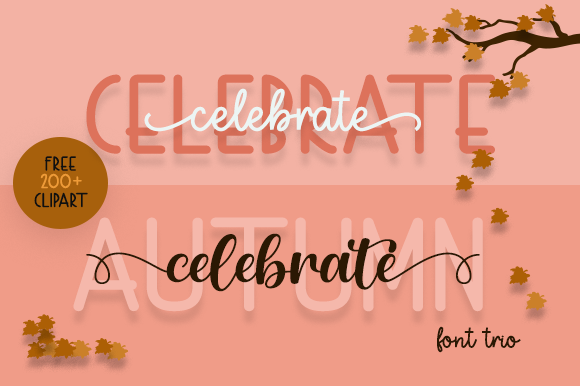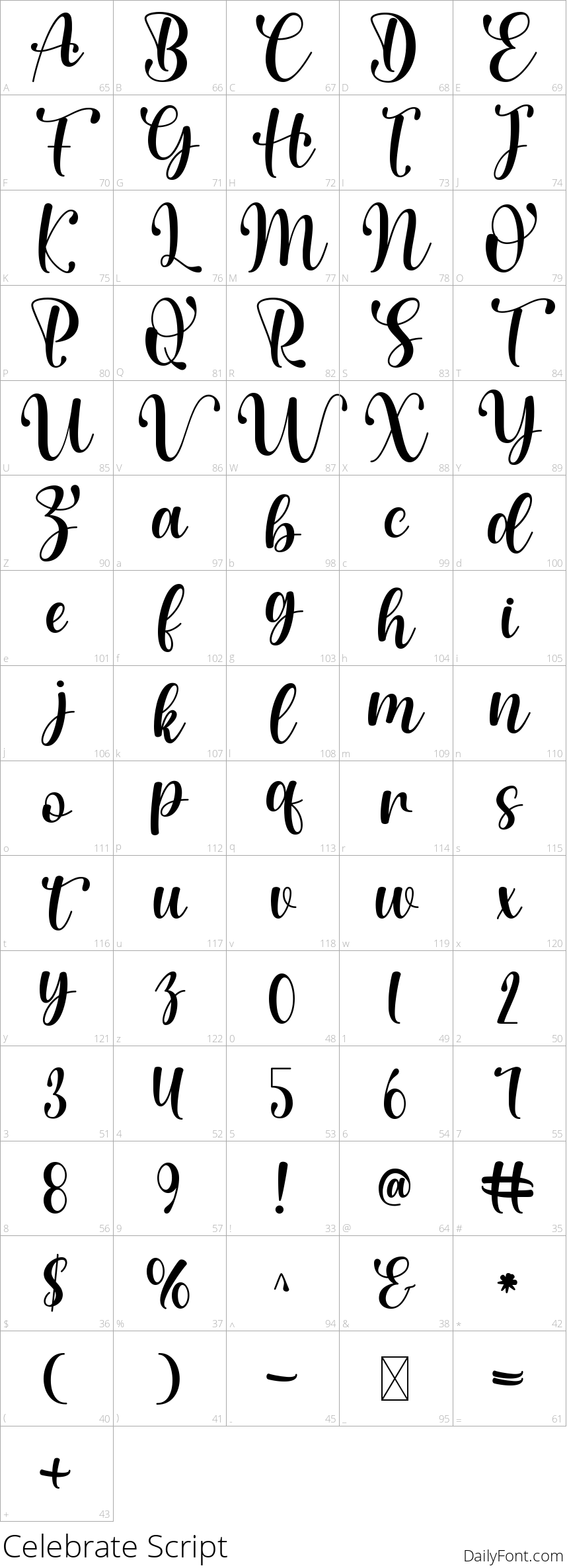
Autumn Celebrate
Looking for a versatile font that adds a touch of elegance to your designs? Search no further than a lovely script-sans serif duo font like Autumn Celebrate. With its incredible versatility, this font seamlessly adapts to a wide range of design styles, effortlessly elevating them to new heights.
Whether you're crafting a romantic invitation, designing a luxurious brand identity, or creating a whimsical illustration, Autumn Celebrate is the perfect companion to bring your ideas to life. Its script portion adds a touch of sophistication and flair, while its sans-serif counterpart provides clean and modern contrast.
What's more, this PUA-encoded font allows for easy access to all its glyphs and swashes, giving you endless opportunities to customize and refine your design. Whether you're a designer, artist, or simply someone looking to add some personality to your projects, Autumn Celebrate is the perfect choice for anyone seeking a high-quality, versatile font that will make their designs truly unforgettable.